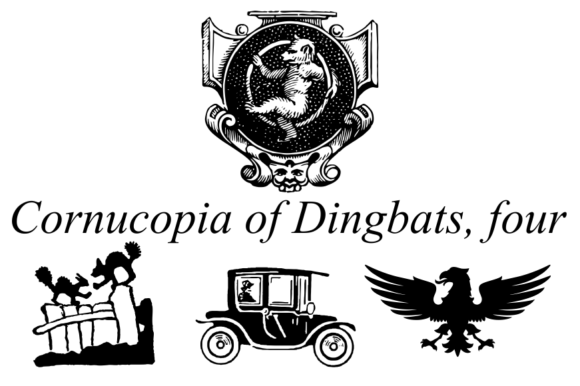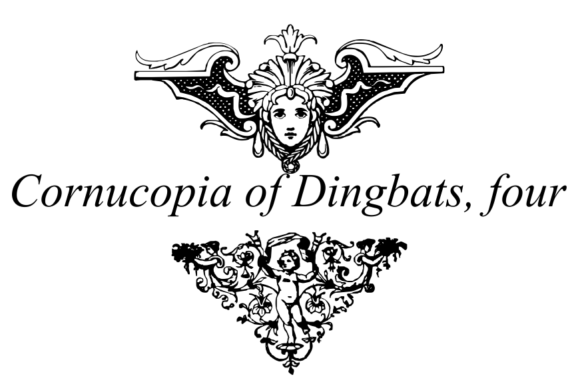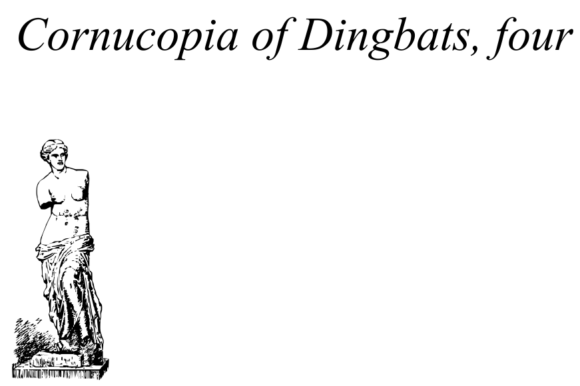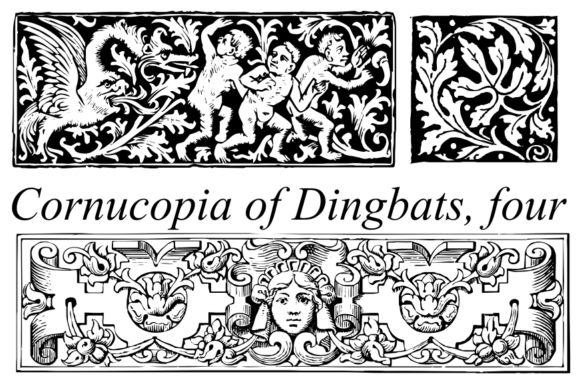
Cornucopia of Dingbats Four Font
About Cornucopia of Dingbats Four Font
Cornucopia of Dingbats Four is a vintage dingbats and ornaments font that offers a diverse collection of decorative elements and symbols. This font is designed to evoke a sense of nostalgia and charm, making it perfect for projects that require a vintage or retro aesthetic.
The dingbats in Cornucopia of Dingbats Four encompass a range of themes, including nature, animals, objects, and various decorative elements. From floral motifs and ornate borders to whimsical illustrations and intricate patterns, this font provides a wide array of options for enhancing your designs.
The ornaments in the font can be used to embellish text, frames, borders, or any other design element that needs an extra touch of visual interest. They can be combined and arranged in various ways to create unique compositions and add a vintage flair to your projects.
Whether you’re working on graphic design, typography, branding, invitations, packaging, or any other creative endeavor, Cornucopia of Dingbats Four offers a versatile collection of vintage dingbats and ornaments to enhance your designs and evoke a sense of classic elegance.
When using this font, it’s important to consider the overall design context and ensure that the dingbats and ornaments complement the visual theme and message of your project. Experiment with different combinations and arrangements to find the perfect balance and create visually appealing compositions.
Overall, Cornucopia of Dingbats Four is a valuable resource for designers seeking to incorporate vintage-inspired dingbats and ornaments into their projects, allowing for endless creative possibilities.